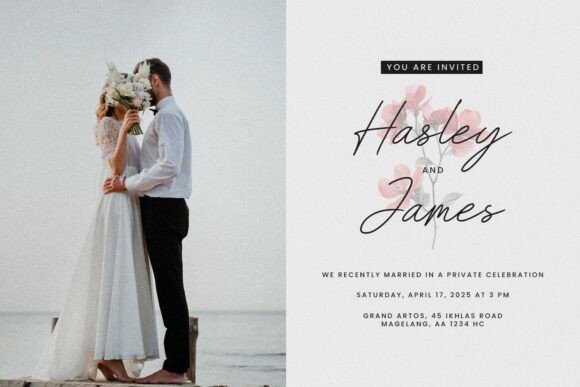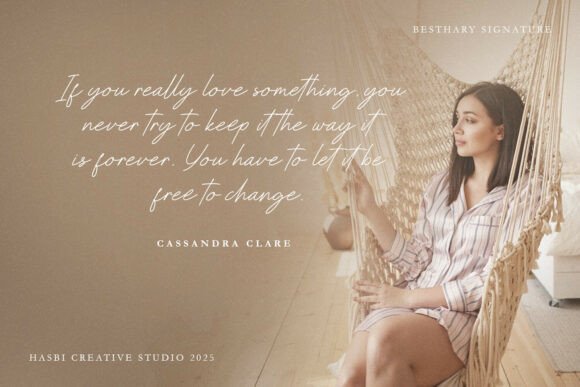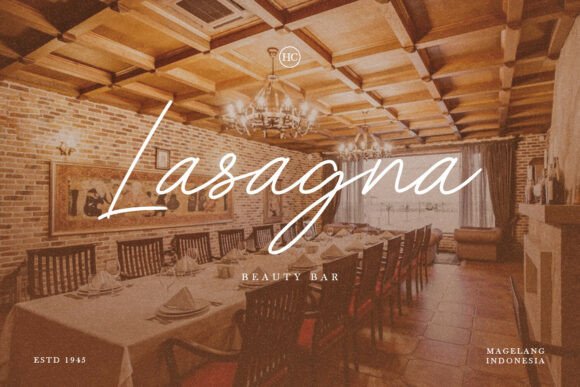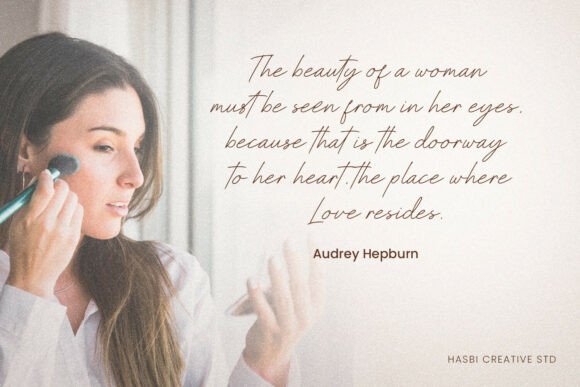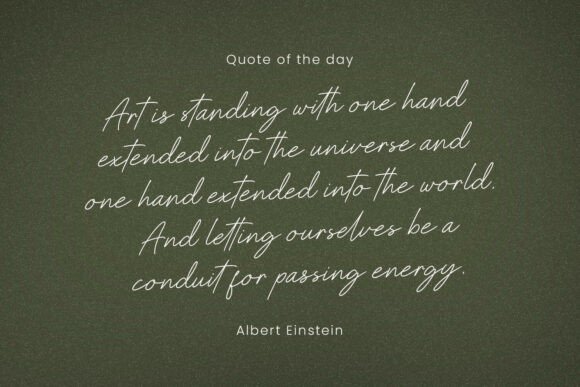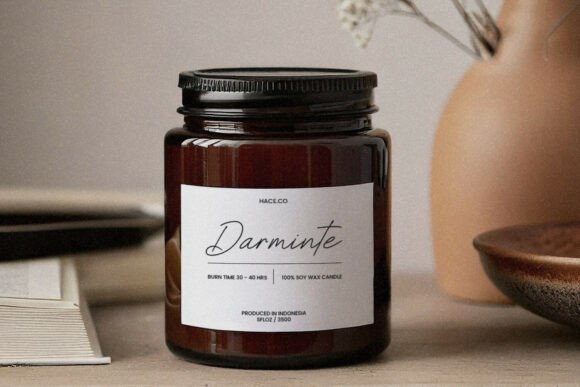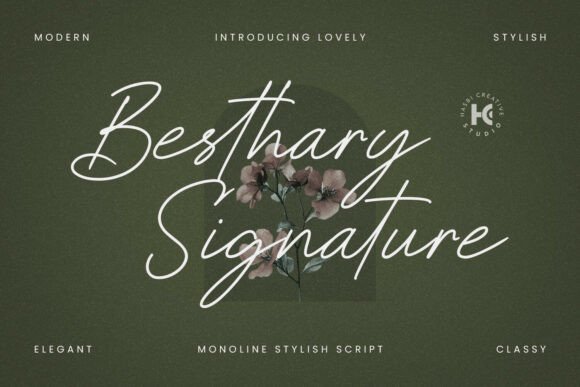
Introducing Besthary Signature: Elevate Your Designs with Elegant Handwritten Calligraphy
In the world of digital design, fonts play a crucial role in conveying the tone and personality of a project. For designers and crafters seeking to add a touch of sophistication and personalization to their creations, Besthary Signature is an exceptional choice. This captivating font brings the charm and elegance of handwritten calligraphy to your digital projects, making it an ideal solution for those looking to elevate their designs.
The Charm of Handwritten Calligraphy
Besthary Signature is a masterfully crafted font that emulates the beauty of handwritten calligraphy. Its flowing strokes, graceful curves, and authentic handwritten style work in harmony to create a visually stunning effect. This font is perfect for designers who want to add a personal touch to their projects, making them stand out in a crowded digital landscape.
Key Features of Besthary Signature
- Authentic Handwritten Style: Besthary Signature boasts an authentic handwritten style that is reminiscent of traditional calligraphy.
- Flowing Strokes and Curves: The font’s flowing strokes and curves create a sense of movement and fluidity, adding elegance to any project.
- Highly Readable: Despite its ornate nature, Besthary Signature remains highly readable, making it suitable for a wide range of applications.
- Versatile: This font can be used in various design projects, from branding and advertising to packaging and digital media.
Applications of Besthary Signature
Besthary Signature is an incredibly versatile font that can be used in a multitude of design projects. Some of the most popular applications include:
- Branding and Logo Design: Add a touch of elegance and sophistication to your brand’s identity with Besthary Signature.
- Digital Marketing Materials: Use Besthary Signature to create eye-catching social media graphics, email headers, and blog posts.
- Packaging Design: Elevate your product packaging with the luxurious feel of Besthary Signature.
- Stationery and Invitations: Create beautiful digital stationery, invitations, and greeting cards with Besthary Signature.
Why Choose Besthary Signature?
With so many fonts available, why choose Besthary Signature? Here are a few compelling reasons:
- Unique and Distinctive: Besthary Signature offers a unique and distinctive style that sets it apart from more traditional fonts.
- Elegant and Sophisticated: This font exudes elegance and sophistication, making it perfect for high-end designs.
- Easy to Read: Despite its ornate nature, Besthary Signature remains easy to read, ensuring that your message is conveyed clearly.
Tips for Using Besthary Signature
To get the most out of Besthary Signature, consider the following tips:
- Use it Sparingly: Besthary Signature is a statement font, so use it sparingly to avoid overwhelming your design.
- Pair it with a Simple Font: Pair Besthary Signature with a simple font to create visual contrast and balance.
- Experiment with Colors: Besthary Signature looks stunning in a variety of colors, so don’t be afraid to experiment and find the perfect hue for your design.
Besthary Signature is a captivating font that brings the charm and elegance of handwritten calligraphy to your digital creations. With its flowing strokes, graceful curves, and authentic handwritten style, this font is sure to elevate your designs and add a touch of sophistication. Whether you’re a designer or crafter, Besthary Signature is an exceptional choice for anyone looking to create stunning digital projects.